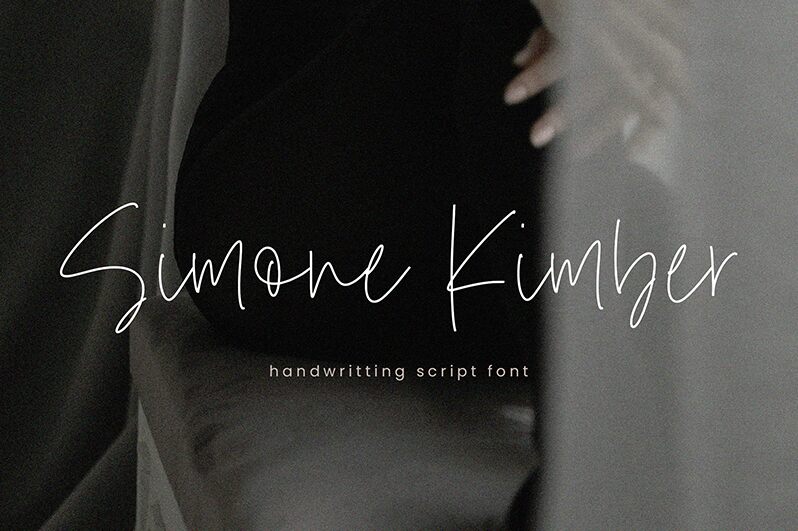
Simone Kimber
Simone Kimber font is a handwritten font designed by Timur Type. The light, signature style will take any design to the next level and give it a personal touch with an artistic flair. The casual style gives off just the right amount of modern aesthetic that can impress any viewer.
Add this free handwritten font to posters, book covers, logos, T-shirts, postcards packaging designs and social media posts related to business or leisure. Simone Kimber can be further used in beautiful typographic quotes, on branding/visual identity projects and websites as well as beauty products and accessories packages. Use it once and admire its expressive effect every time!